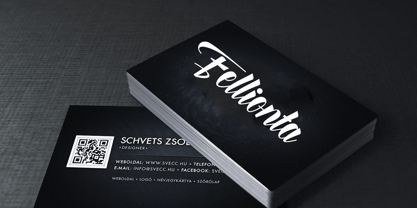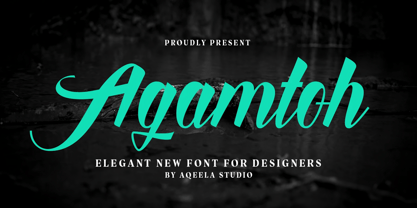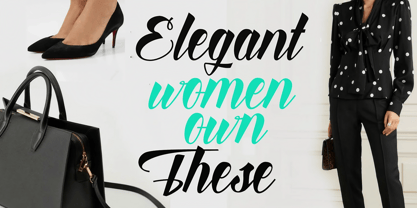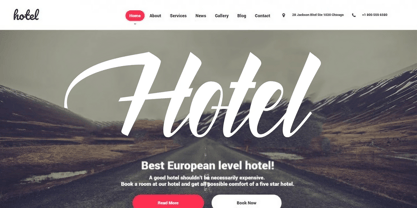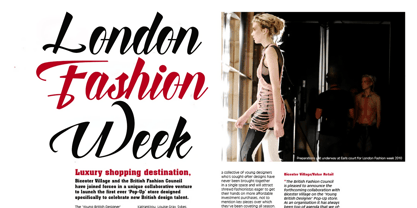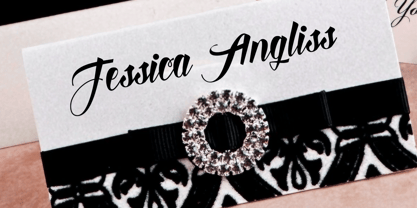
Agamtoh
by Aqeela Studio
The Agamtoh Font Family was designed by Muhammad Nasir and published by Aqeela Studio. Agamtoh contains 1 styles. More about this family
This font exudes an air of elegance and sophistication with its flowing, script-like design. The bold yet smooth curves of each letter convey a sense of confidence and creativity. The vibrant turquoise color contrasts beautifully against the dark, moody background, making the text pop with a striking, modern appeal. Perfectly suited for branding, luxury products, or artistic endeavors, this font speaks volumes in style and versatility while maintaining a timeless charm. Its intricate loops and polished finish suggest a blend of tradition and contemporary flair, ideal for capturing attention and leaving a lasting impression.
Designers: Muhammad Nasir
Foundry: Aqeela Studio
Founded in 2018, Aqeela Studio is an independent type design studio dedicated to crafting expressive, high-quality typefaces for modern visual culture. With an ever-growing collection of fonts—ranging from bold display styles to versatile sans-serifs and elegant scripts—the studio is driven by a deep passion for letterforms and creative experimentation. Each typeface is carefully designed to deliver both function and beauty, empowering designers to elevate their visual storytelling across branding, editorial work, digital interfaces, and more.